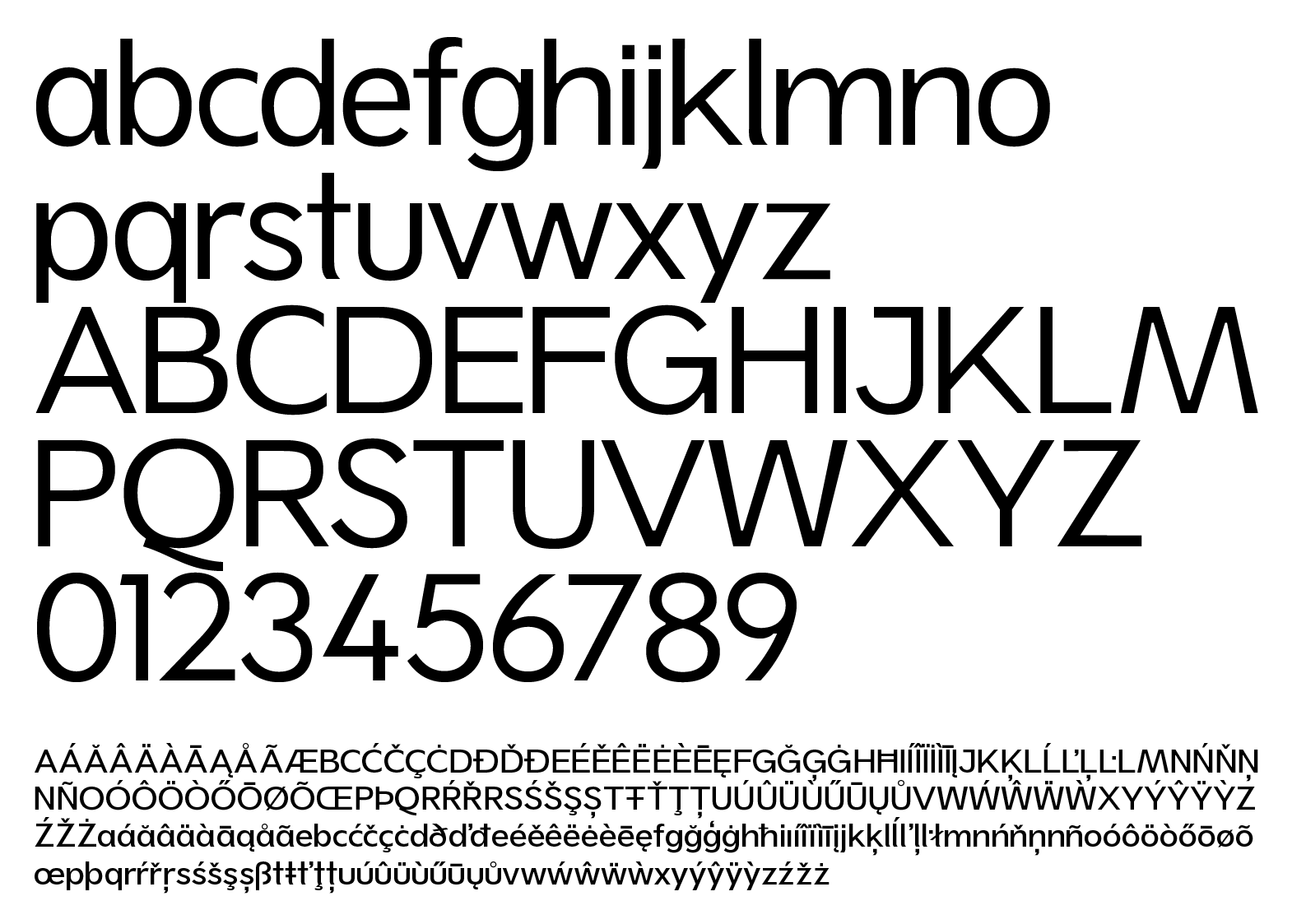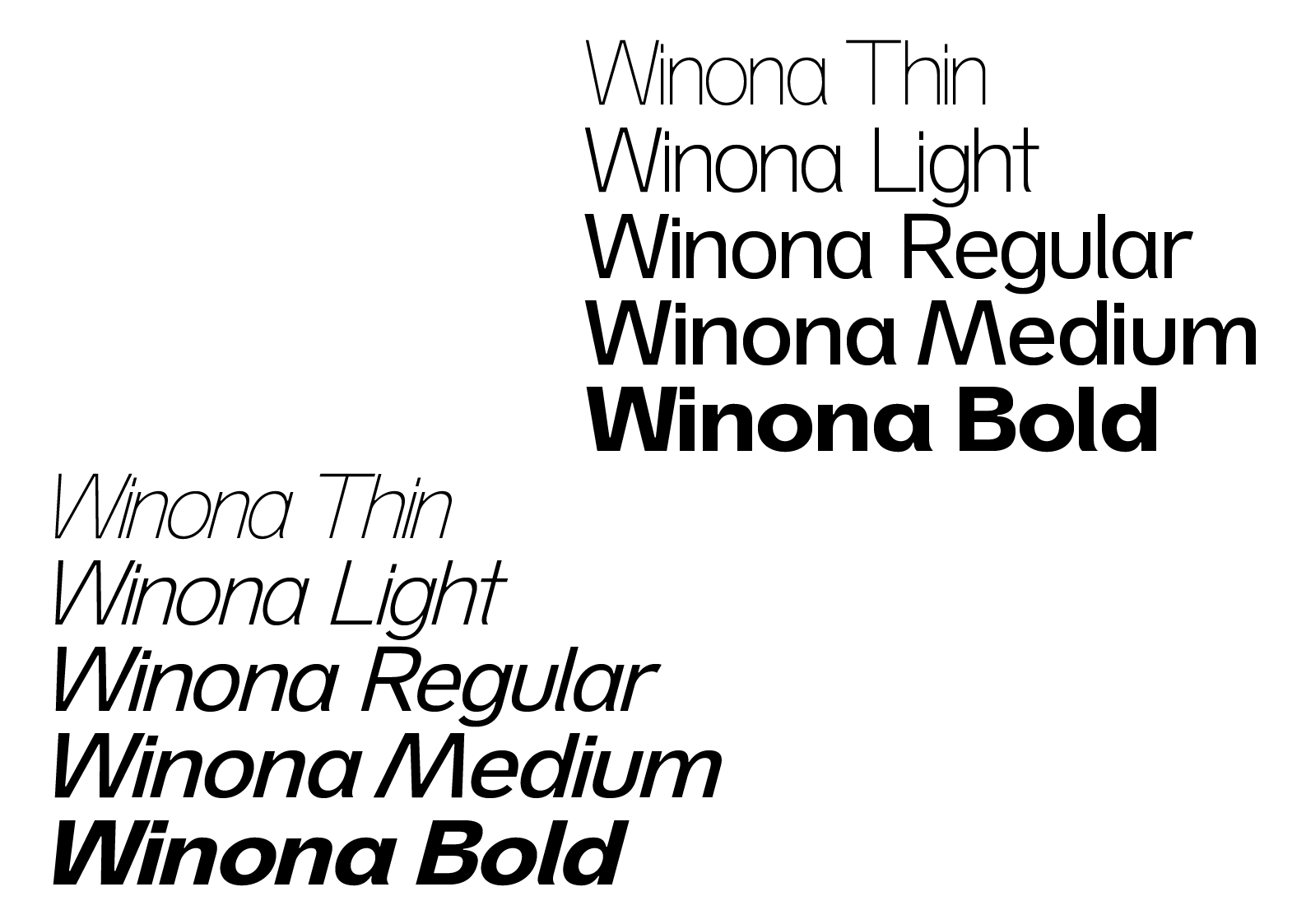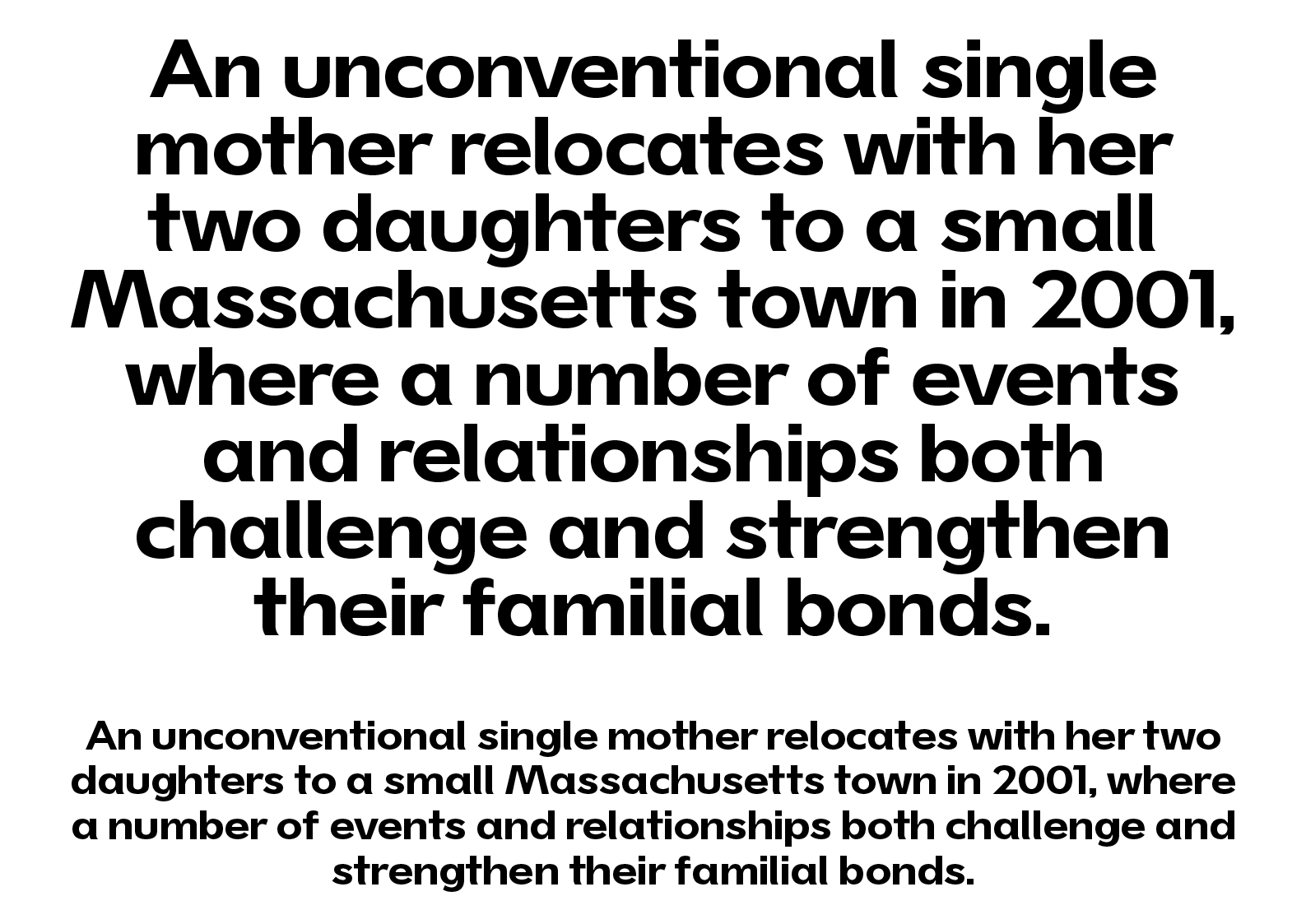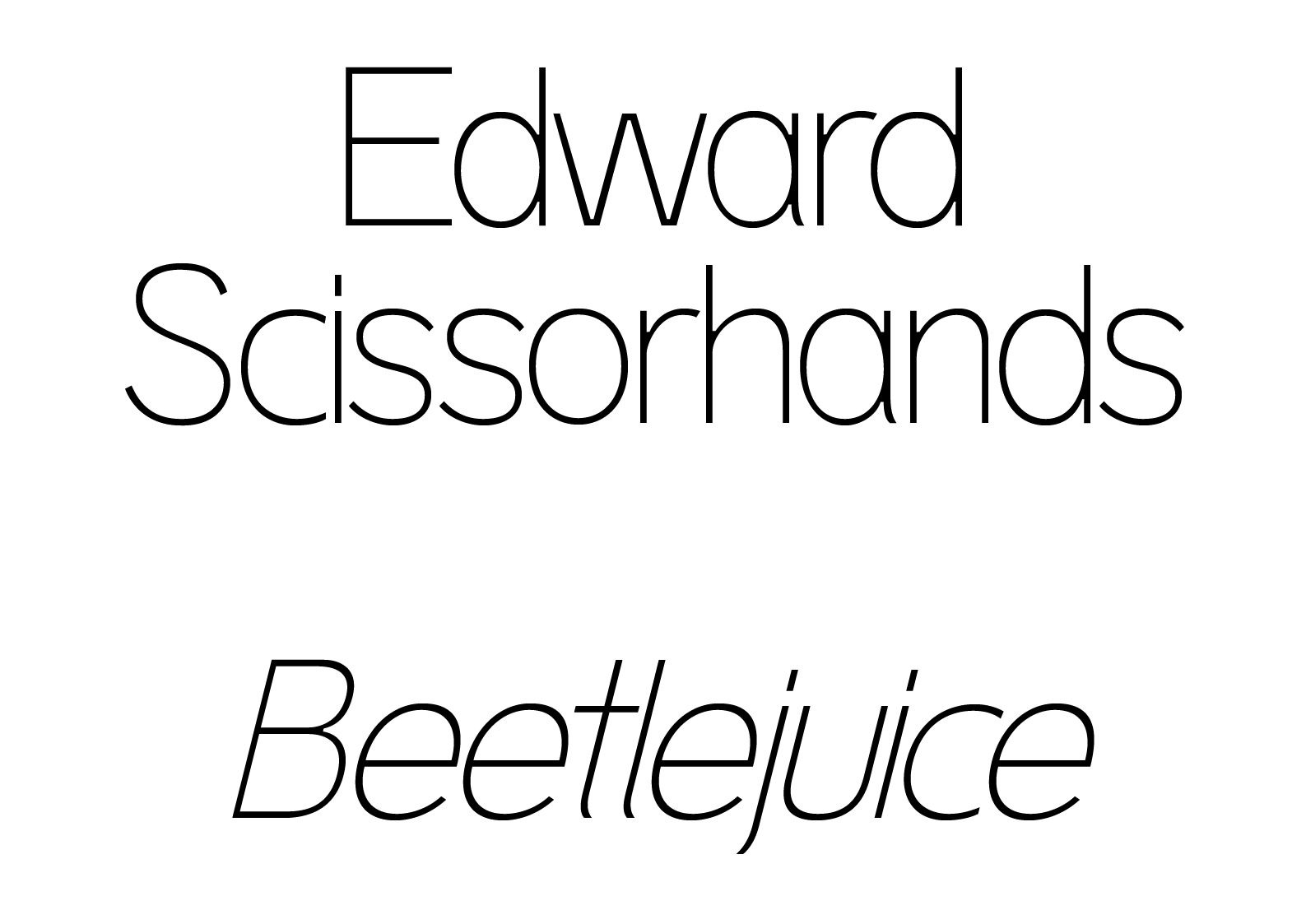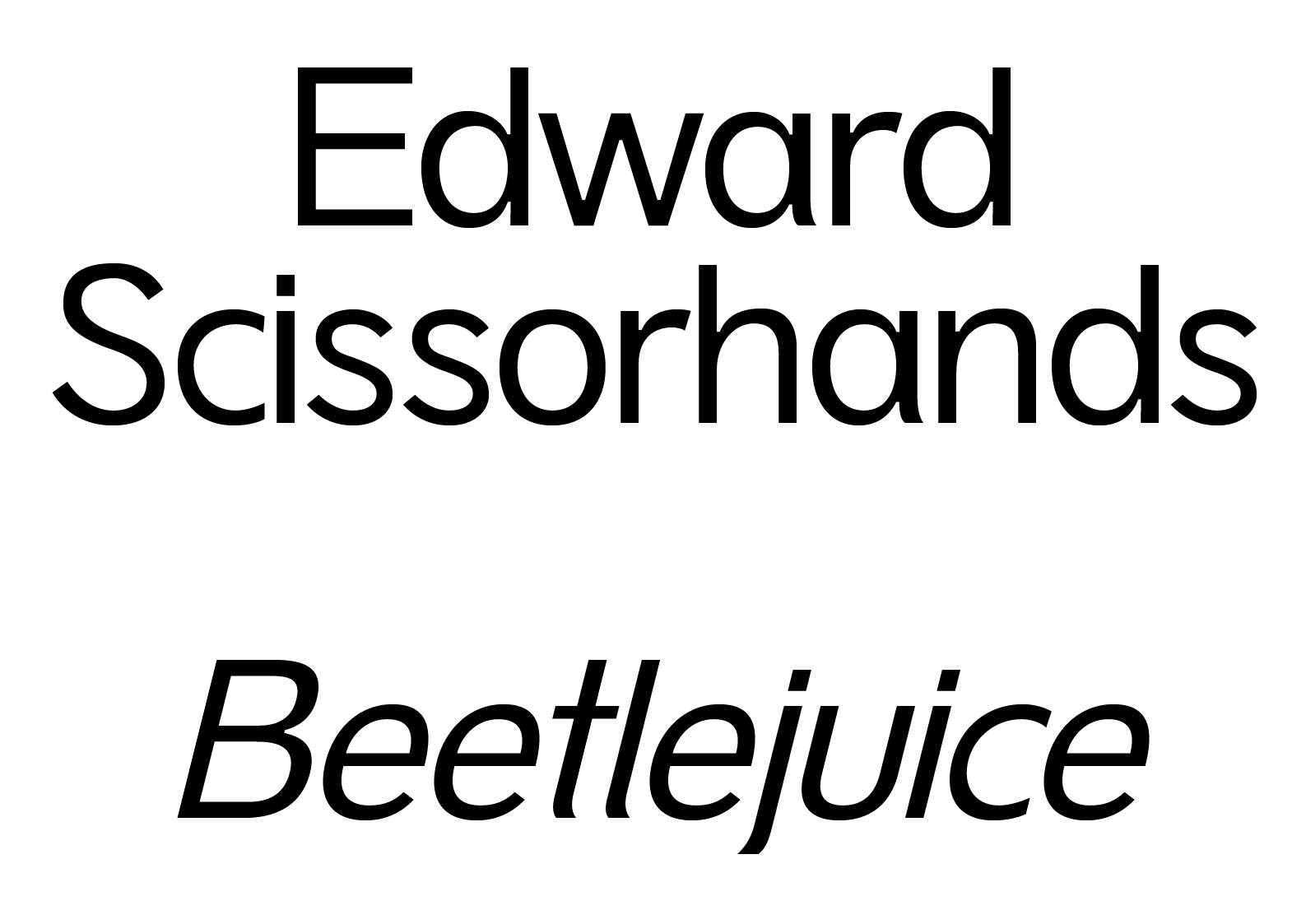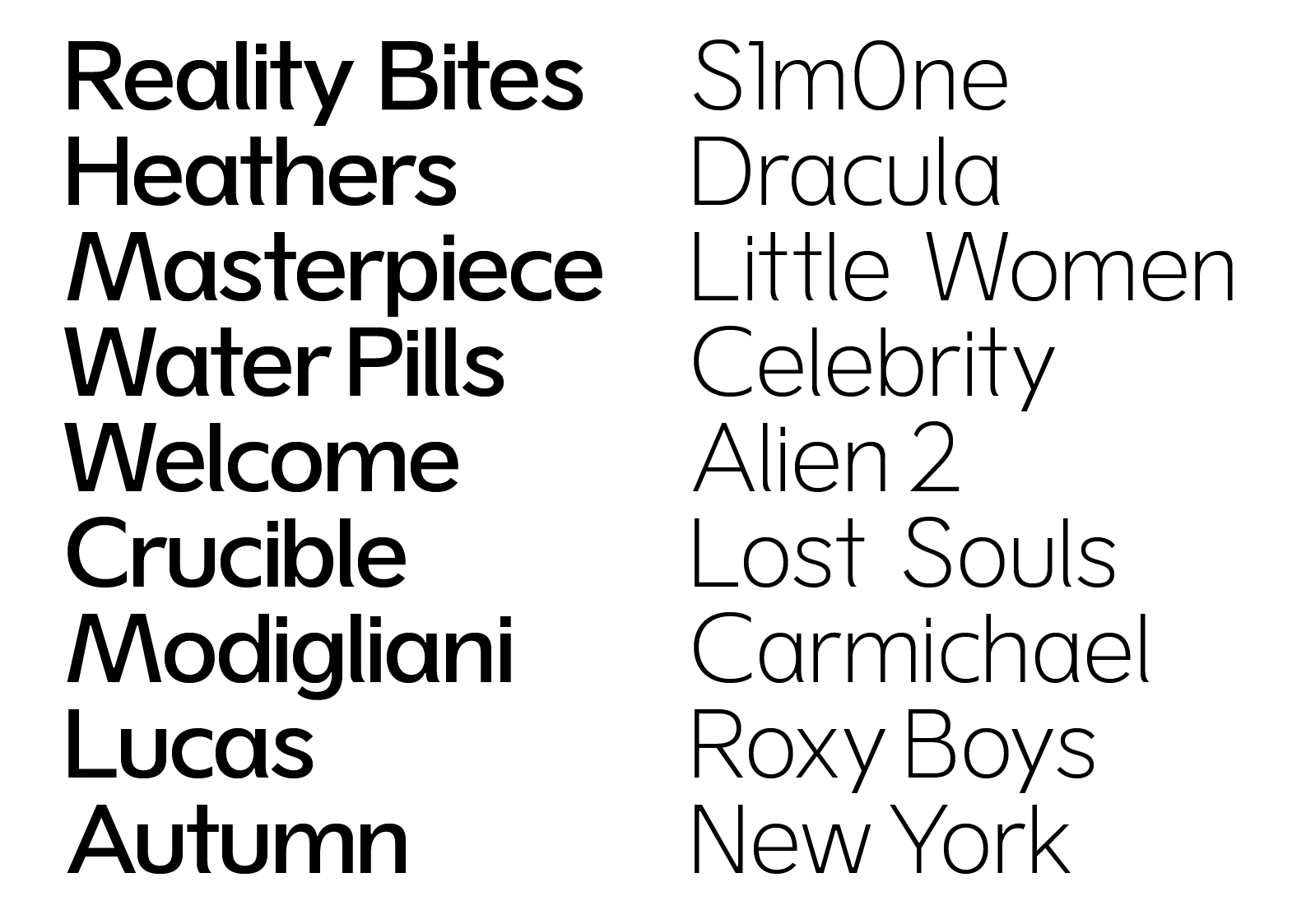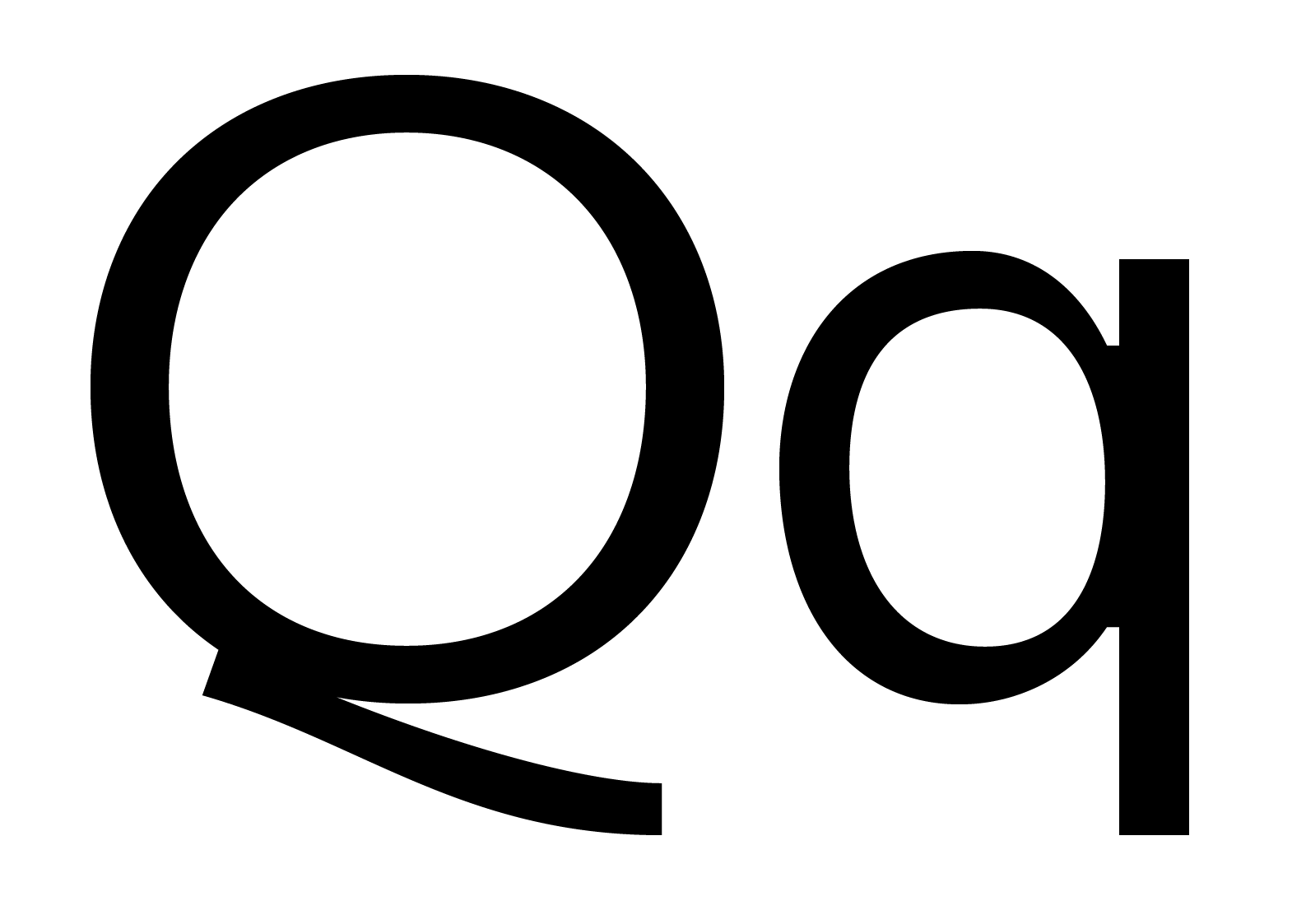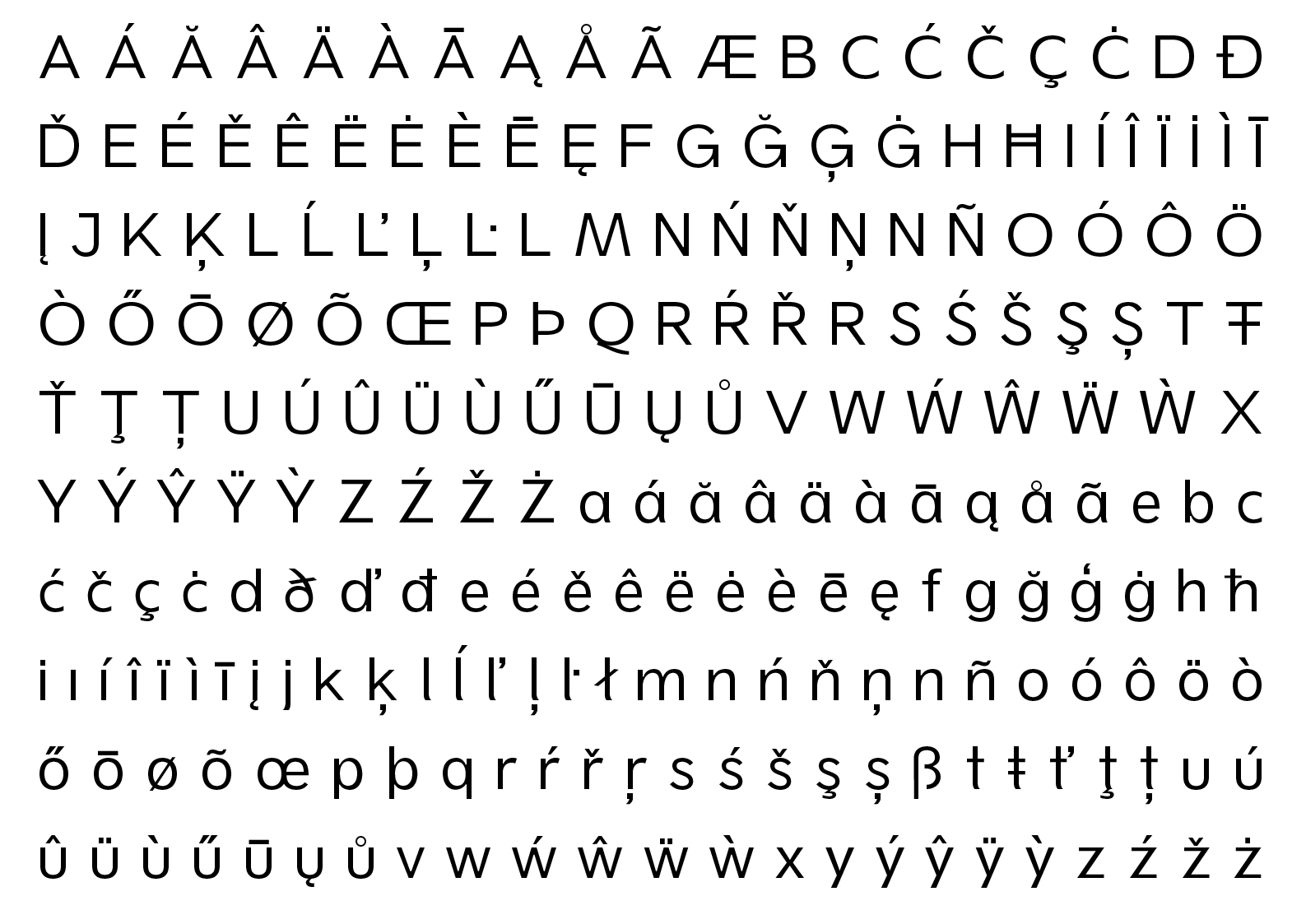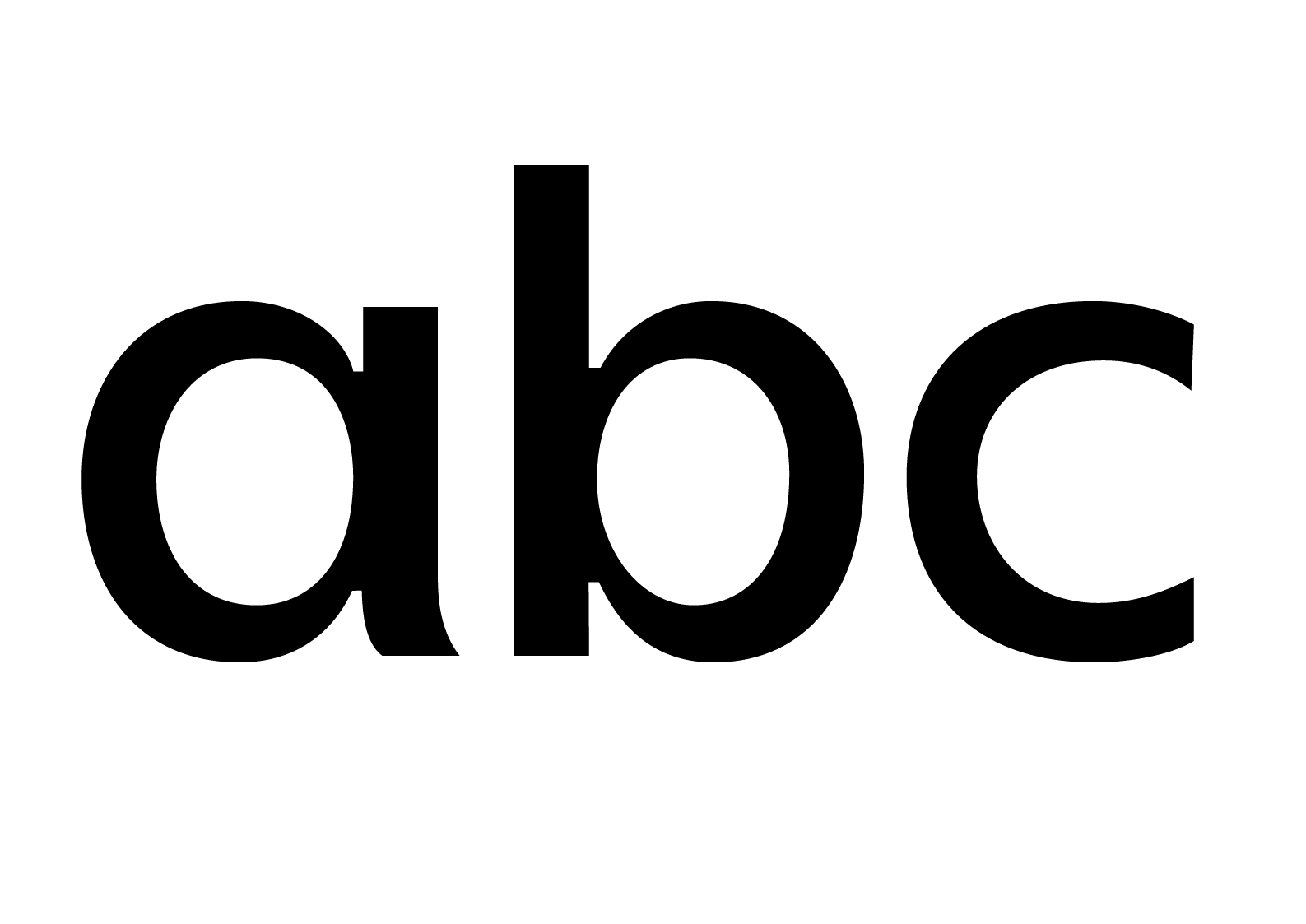
Winona Sans
Winona Sans is a contemporary typeface and a true workhorse for modern design. It balances a clear, structured foundation with refined contrasts of thick and thin strokes, making it both versatile and distinctive. Available in five weights from Thin to Bold, each with charming italics, it adapts easily across applications. Every style is equipped with a full range of OpenType features, including alternate characters, ligatures, special numerals, arrows, and extended language support. Reliable yet expressive, Winona Sans offers precision and adaptability, making it an indispensable tool for today’s designers.
Sans Serif
5 weights